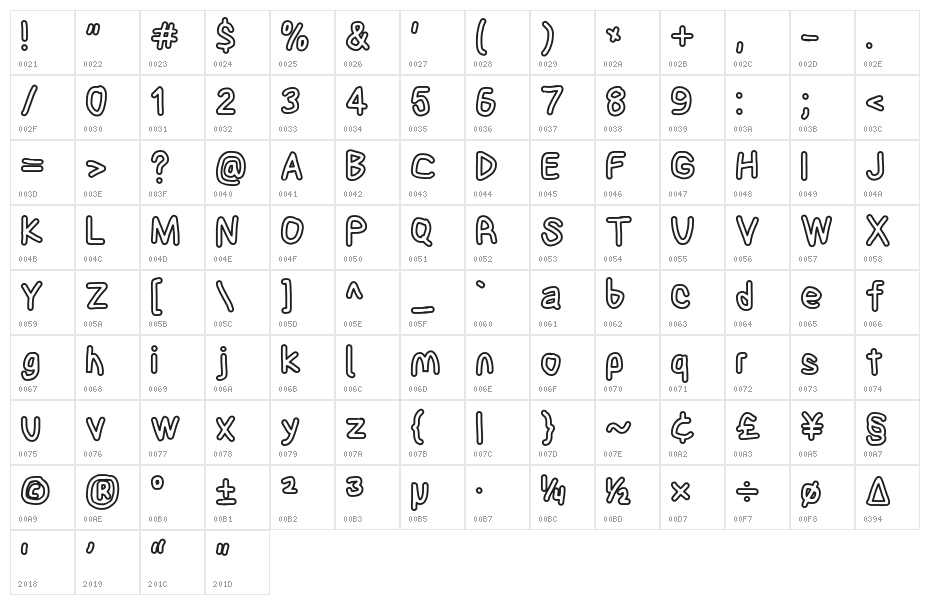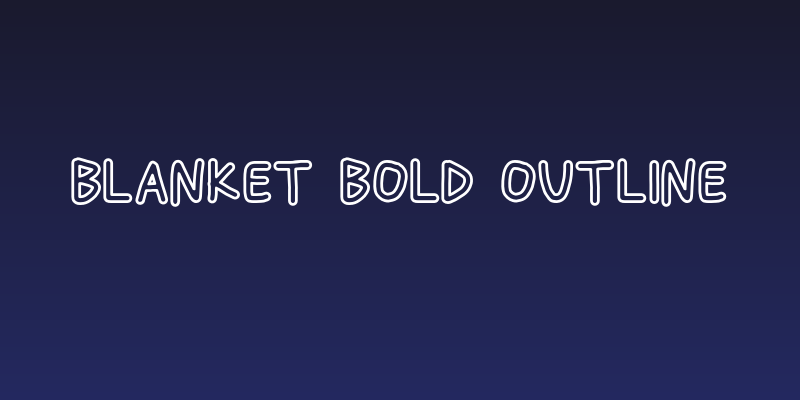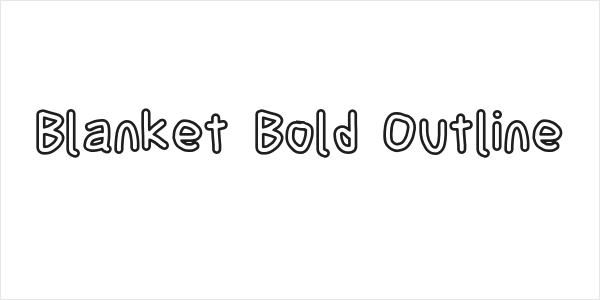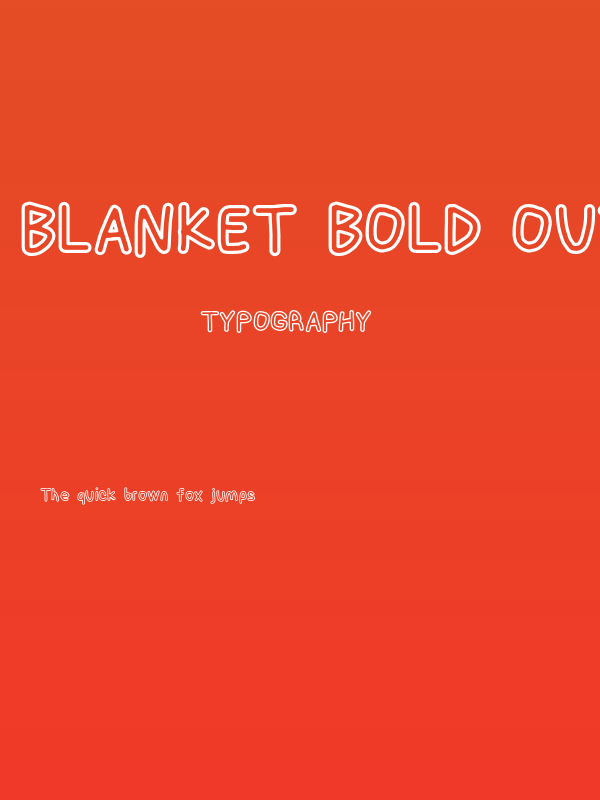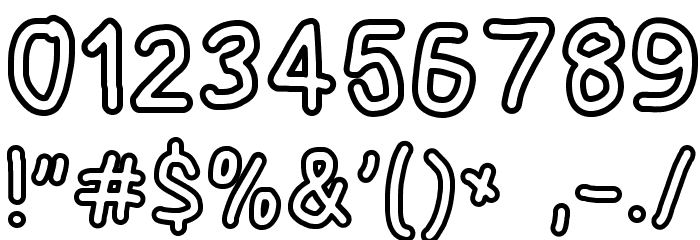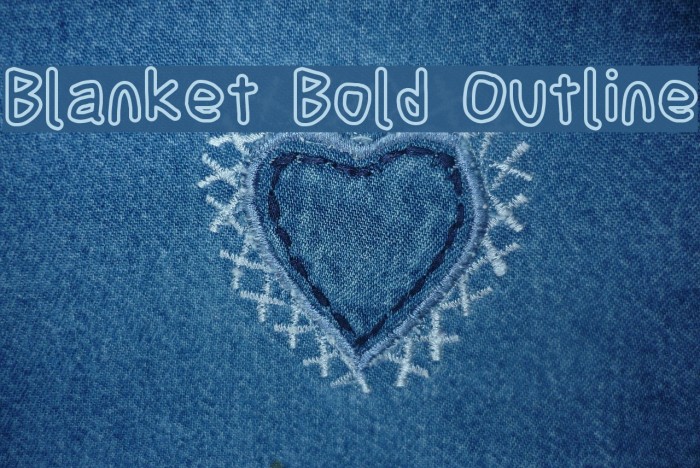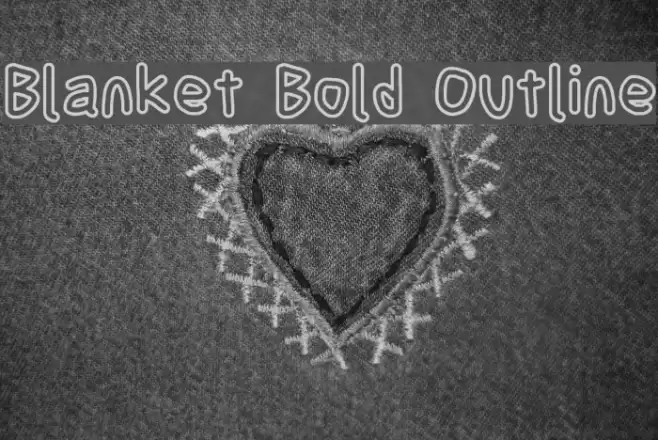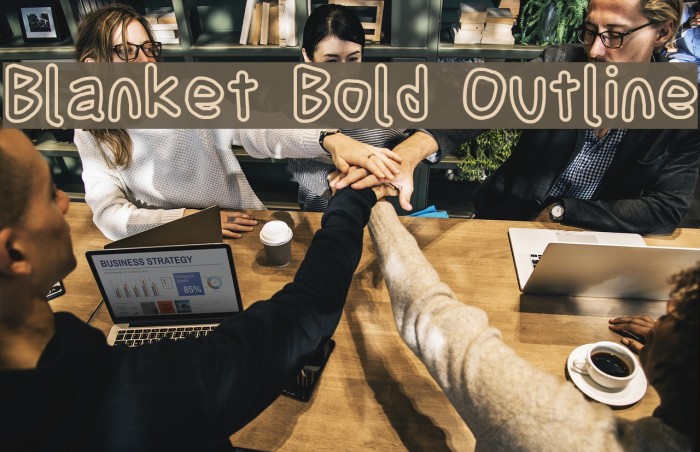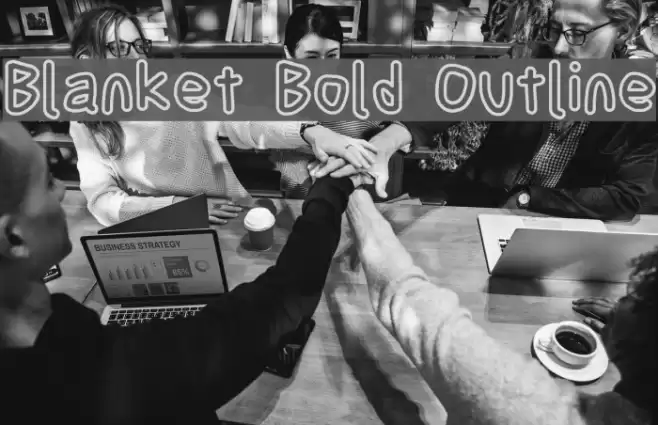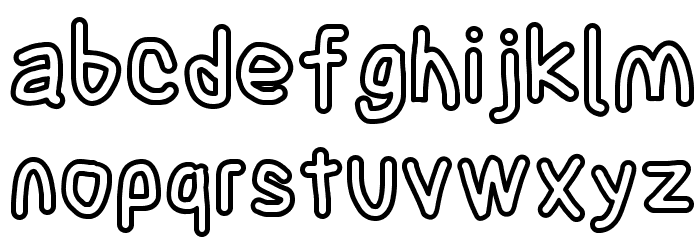
Blanket Bold Outline Font
Blanket Bold Outline Description
This font features bold, rounded characters with a distinct outline that gives it a playful and approachable appearance. The letters are evenly spaced, maintaining a consistent width throughout, which enhances readability. The outline adds a layer of depth, making the characters stand out against various backgrounds. This style is particularly effective for creating eye-catching designs that require a touch of whimsy and fun. The font includes a full set of uppercase and lowercase letters, numbers, and a variety of special characters, making it versatile for different design needs.
| Overall Style | Playful, Fun |
| Proposed Projects | Ideal for children's books, playful branding, posters, and creative social media graphics. |